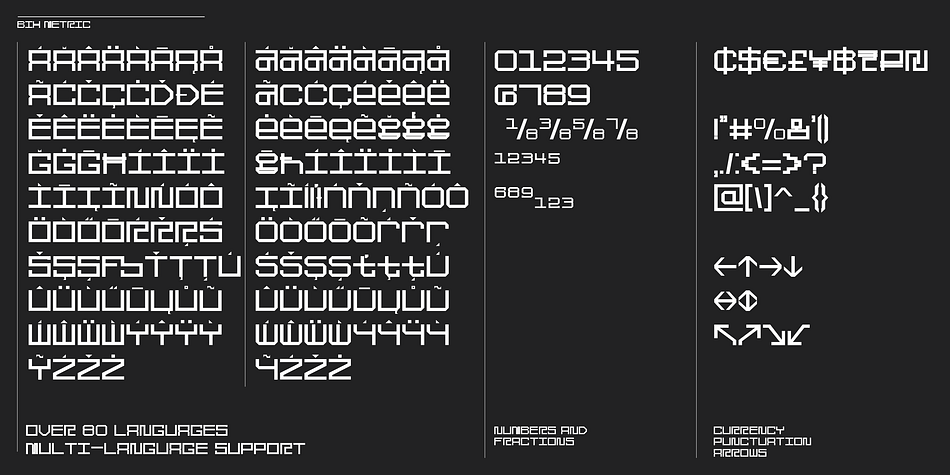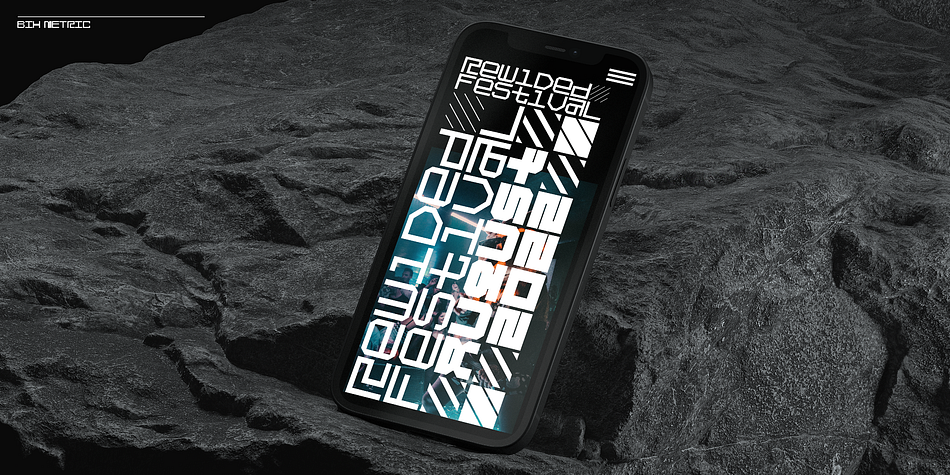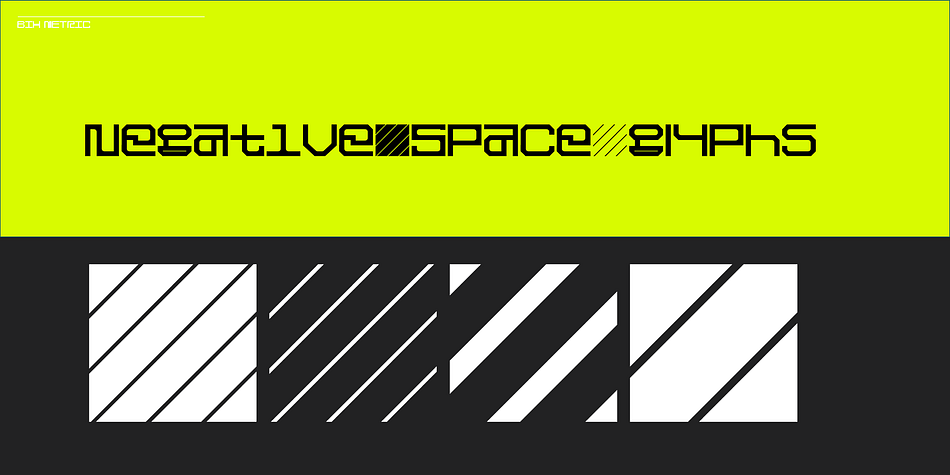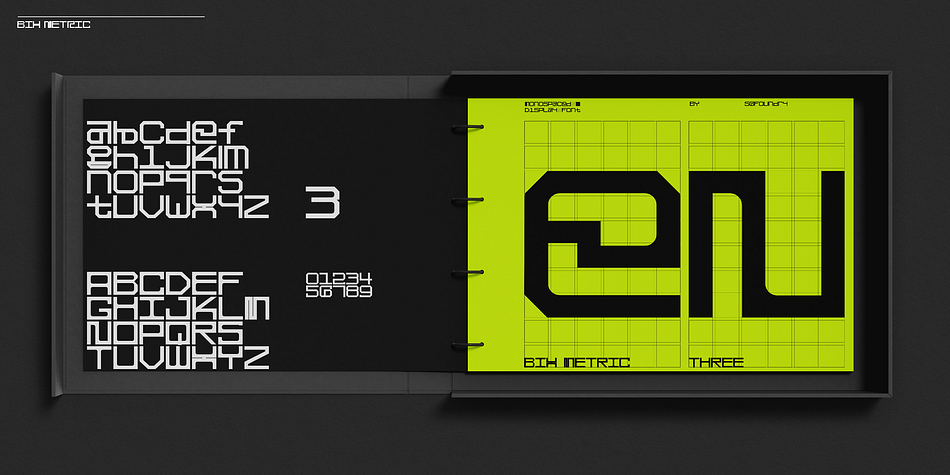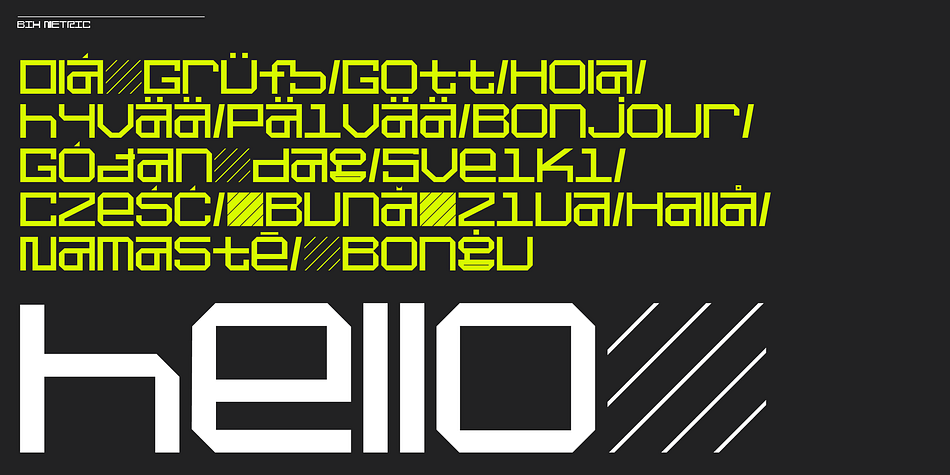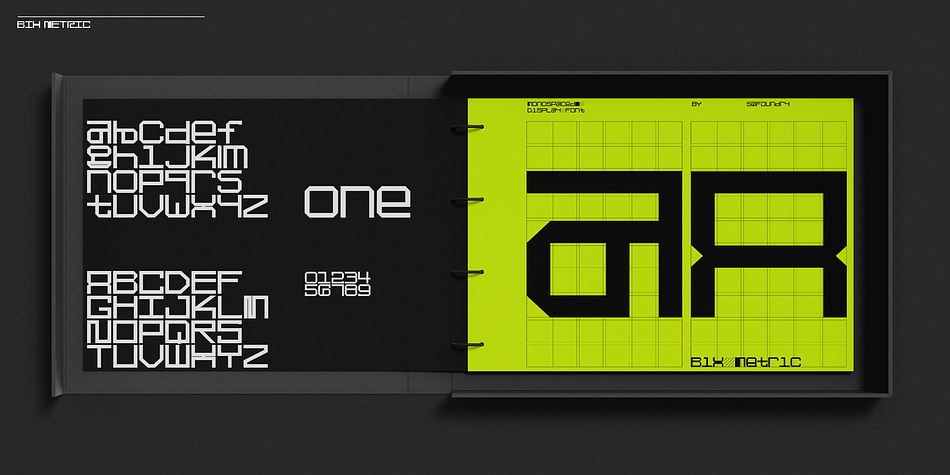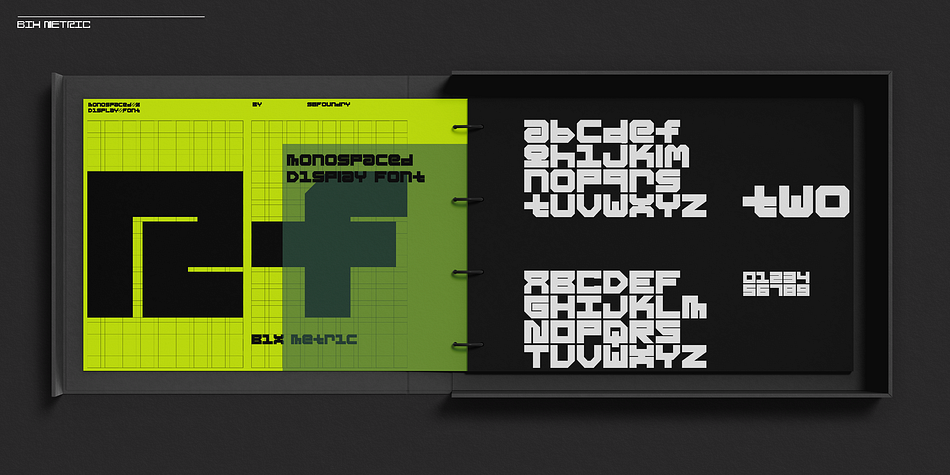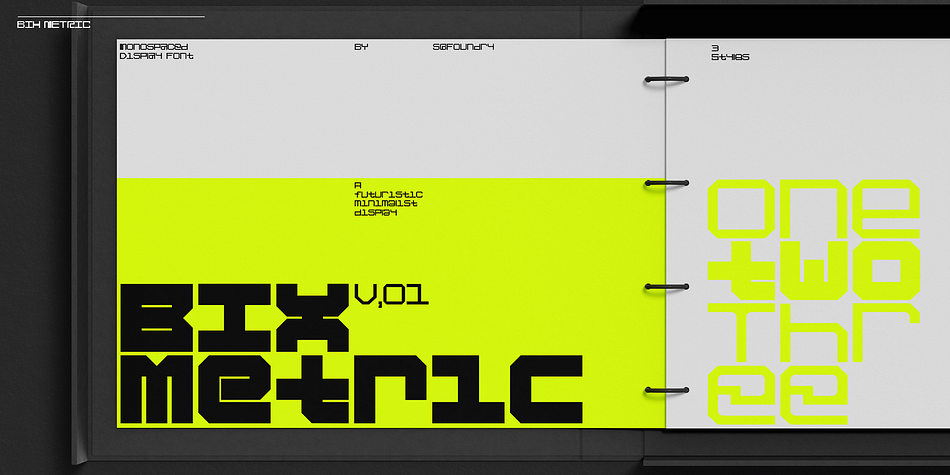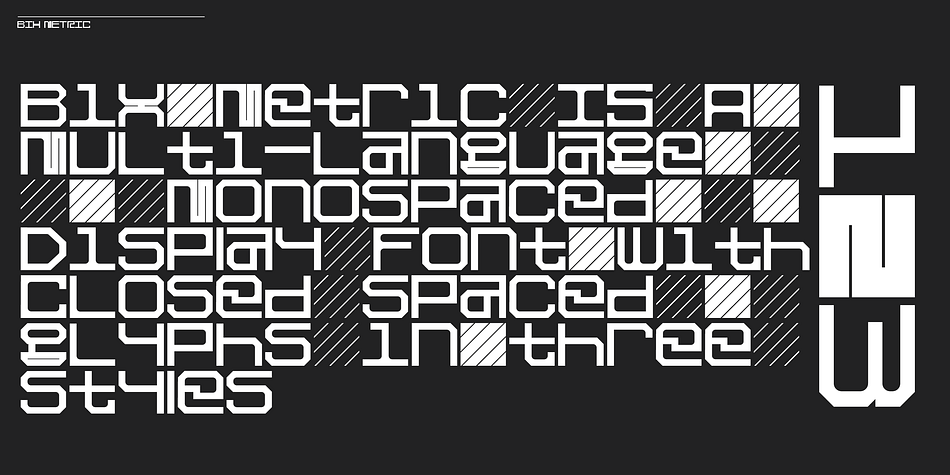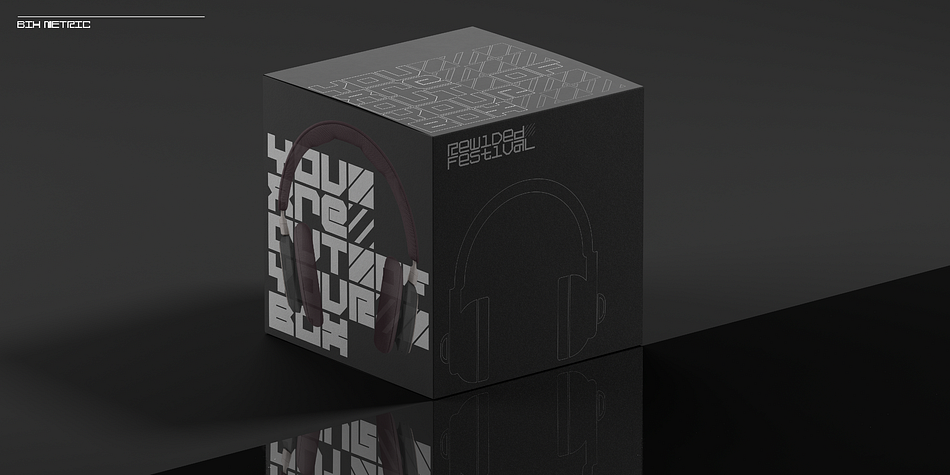
Designed by Paul Robb, Bix Metric is a display sans font family. This typeface has three styles and was published by S6 Foundry.
Bix Metric is a modern, one-of-a kind font that will make your designs stand out against the competition. With 3 styles and 80 languages supported this stylistic display type has what you need for all sorts of projects!